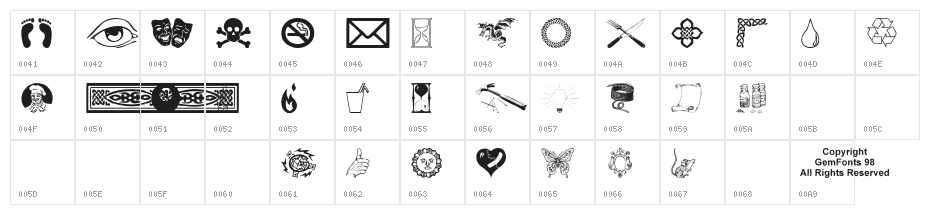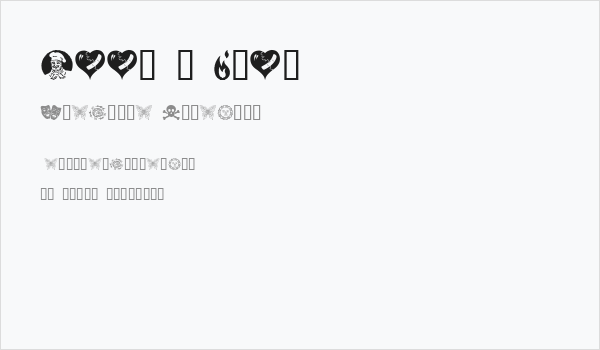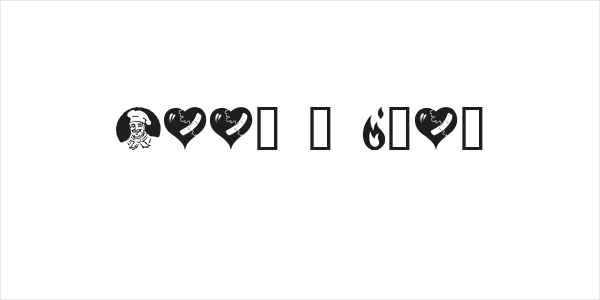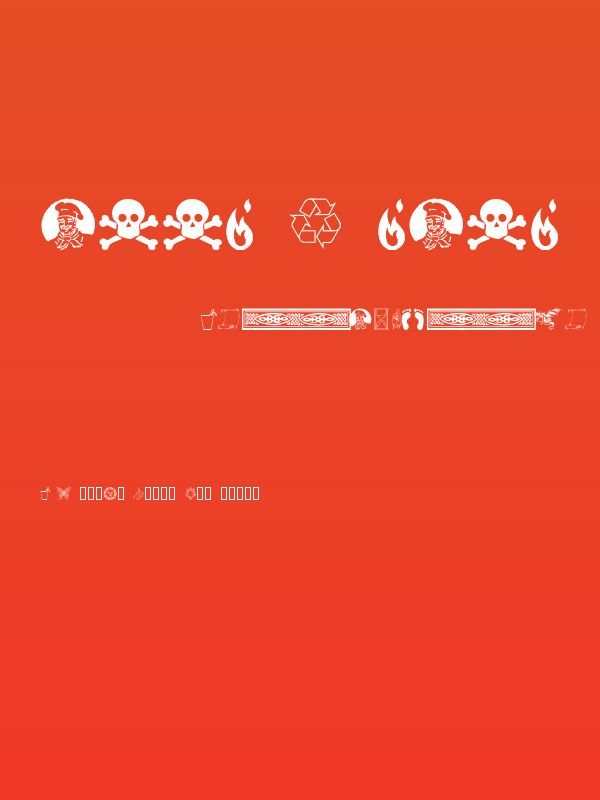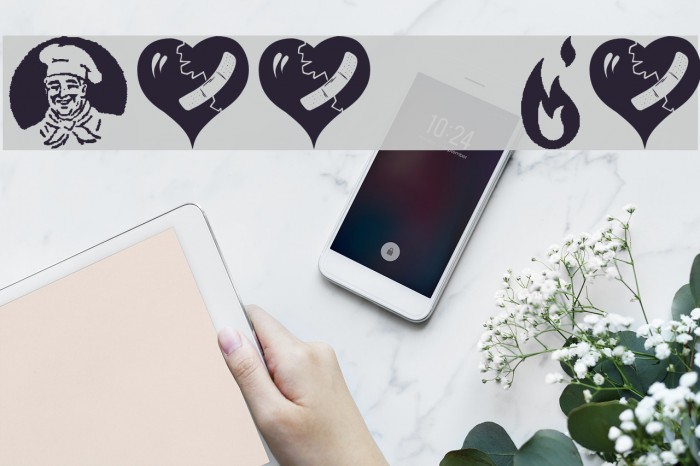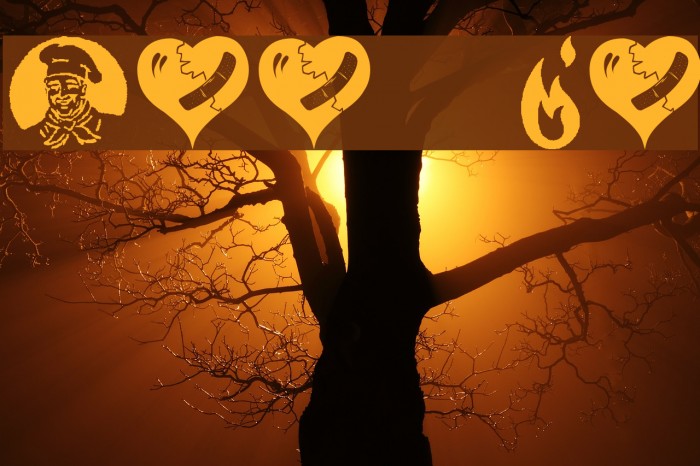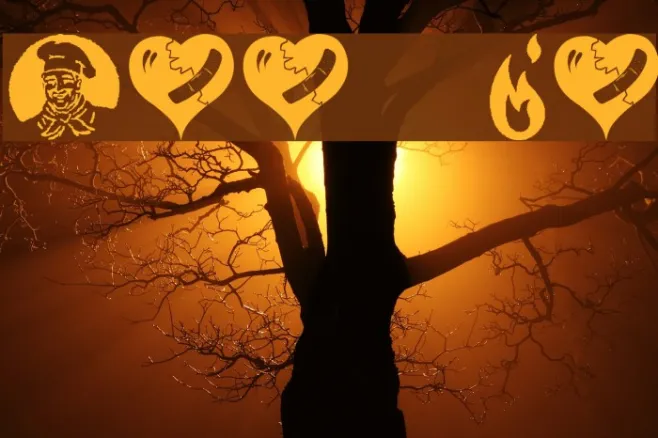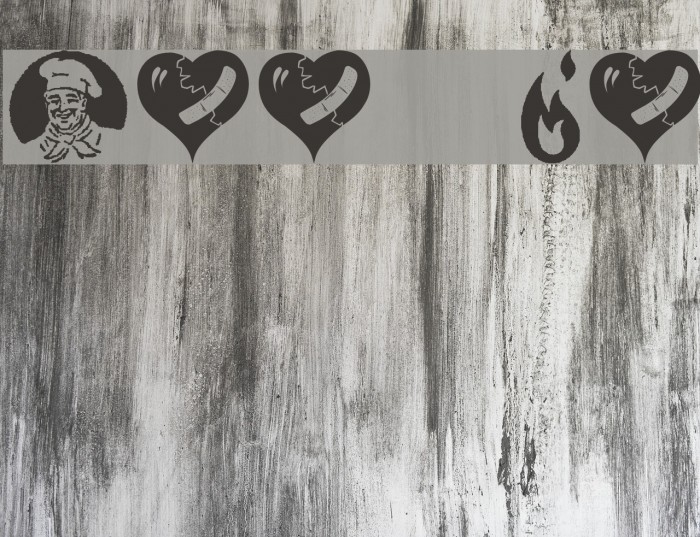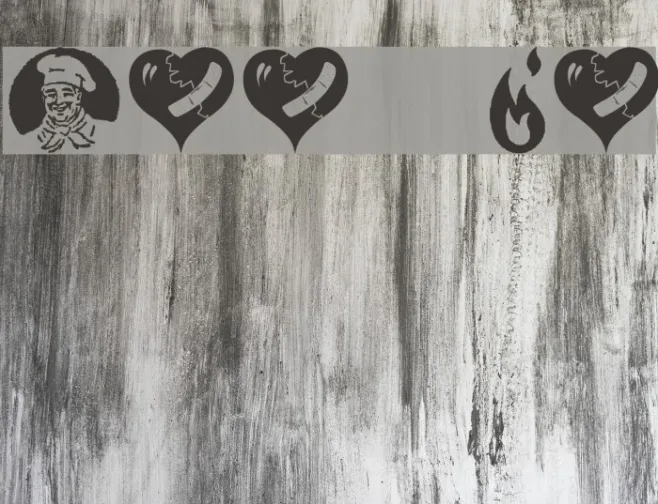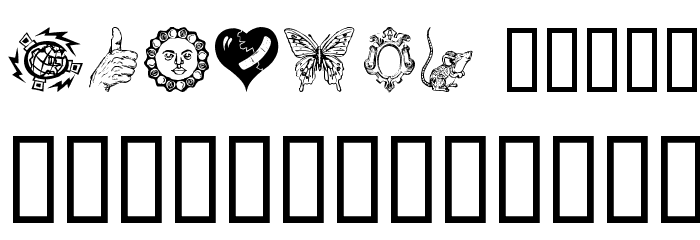
Odds n Sods Font
Odds n Sods Description
A highly decorative dingbat font featuring a diverse collection of pictograms, including objects, symbols, animals, and ornate designs. Each glyph is a unique illustration rather than a traditional letterform, offering a playful and eclectic visual style.
| Overall Style | Decorative, Eclectic, Playful |
| Use Case | Icons, Decorative elements, Themed graphics |
| Proposed Projects | Scrapbooking, invitations, posters, educational materials, creative projects, icon sets. |